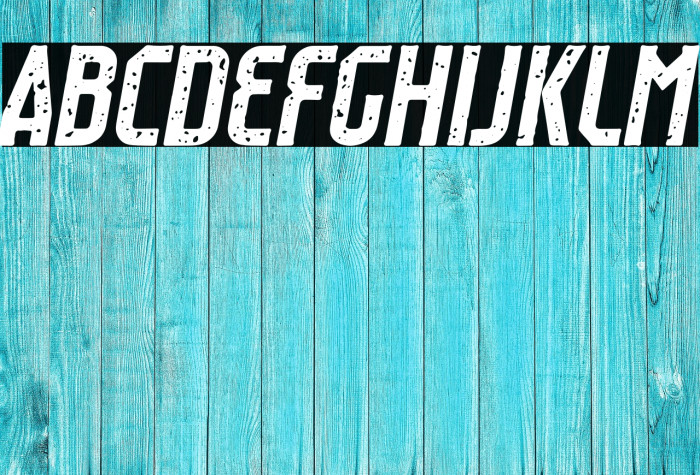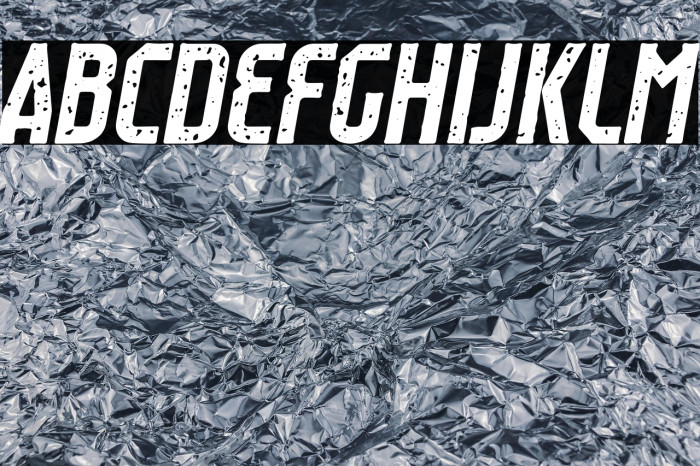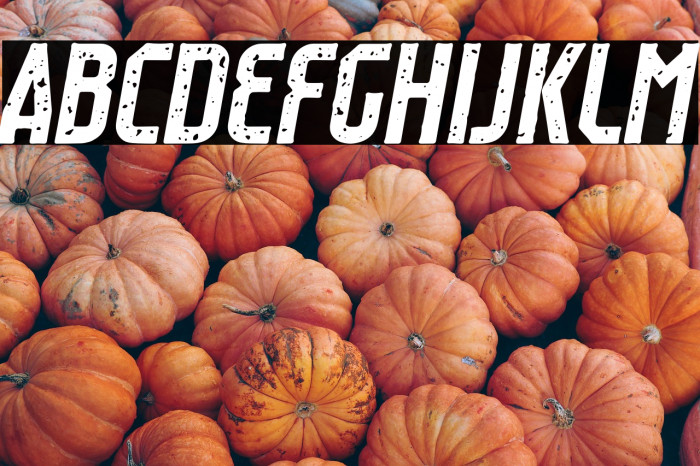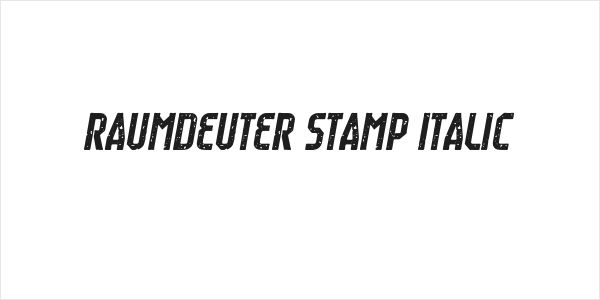
Raumdeuter Stamp Italic Font
Raumdeuter Stamp Italic Description
This font features a bold, italicized style with a distinctive distressed texture that gives it a rugged, vintage appearance. The characters are slightly condensed, enhancing the boldness and making it suitable for impactful designs. The uppercase letters are prominent, with sharp angles and a consistent slant that adds dynamism. The numbers follow the same stylistic cues, ensuring uniformity across different uses. The texture adds a tactile quality, reminiscent of stamped or printed text, making it ideal for projects that require a handcrafted or industrial feel.
| Proposed Projects | Ideal for branding, posters, and packaging that require a vintage or industrial aesthetic. |